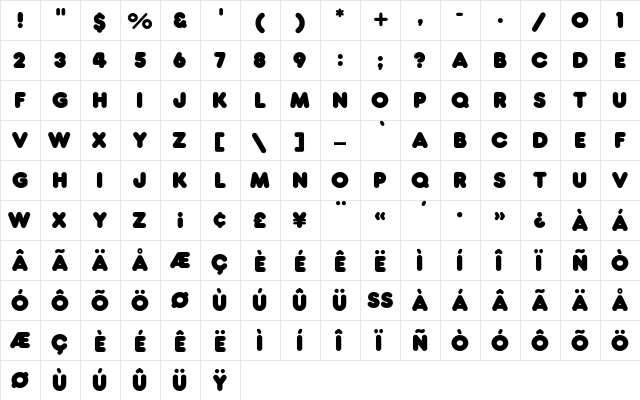
FrankfurterEF Solid
Design Context for FrankfurterEF Typeface
FrankfurterEF takes a measured approach to typography — its balanced proportions and neutral character make it a reliable workhorse for both digital and print work.